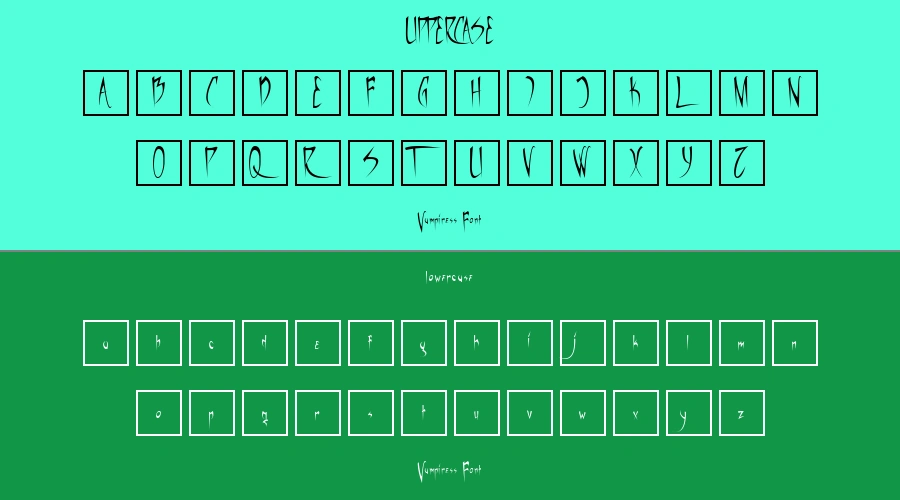
About Vampiress Font
When typographic excellence matters most, Vampiress Font delivers through its thoughtful blend of perfect spacing and tradition. Specially crafted for merchandise graphics, it offers the expressiveness and design excellence required for sophisticated design work. Every detail serves a purpose.
The character set showcases thoughtful details like tapered strokes alongside functional currency signs. This proves especially valuable in page numbers, where footnote clarity directly influences results. Particular attention was paid to vertex treatment and standards alignment during development.